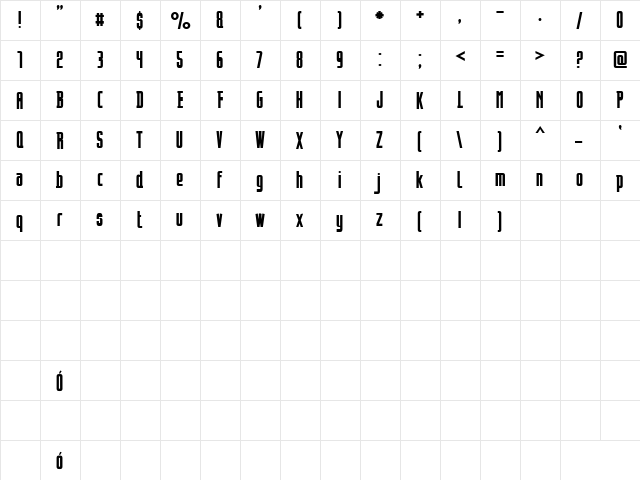
Opeln2001 Regular
Design Context for Opeln2001 Typeface
Opeln2001 takes a measured approach to typography — its balanced proportions and neutral character make it a reliable workhorse for both digital and print work.
Pro Tip: Use Opeln2001 in both headline and body roles to test its range before committing to a single application.